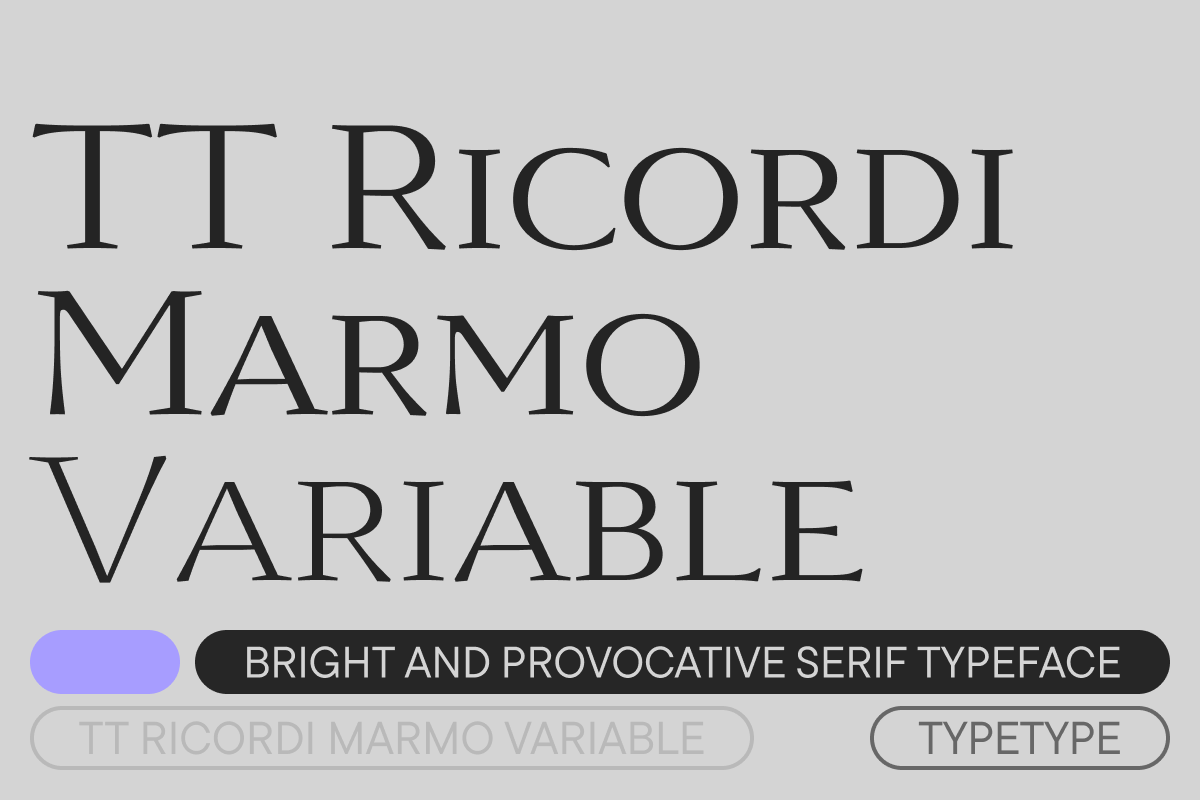
TT Ricordi Marmo Variable
TT Ricordi Marmo is an original experimental project inspired by inscriptions at Basilica di Santa Croce in Florence. While working on this project, we aimed to design a modern font that would feature the elements of a Florentine sans serif combined with more traditional visual solutions typical of serifs from that era. As a result, we have an eye-catching and a little provocative typeface with irregular serif distribution, unusual contours, and a free spirit.